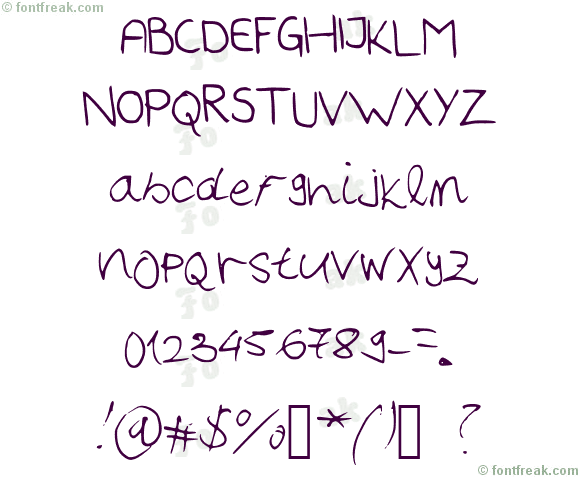
Handwriter
About Handwriter
The Handwriter font, created by Leonard Posavec through MyScriptFont.com, is a charming handwritten typeface that captures the essence of personal touch and authenticity. This script-style font features fluid, natural strokes that mimic the look of genuine handwriting. The overall stroke weight is moderate, offering a balanced appearance without being overly bold, and the subtle variations in contrast add an organic quality that enhances its handwritten appeal. The spacing between characters is thoughtfully designed to maintain readability while preserving the informal style that characterizes a handwritten font.
The Handwriter font is particularly well-suited for a variety of creative applications. It can elevate wedding invitations with its romantic flair, making special occasions feel even more personalized. Additionally, it works wonderfully for greeting cards, where a warm touch can make messages feel more heartfelt. Restaurant menus can benefit from its friendly vibe, enticing customers with an inviting aesthetic. Small business branding, such as logos or promotional materials, can also leverage this font to convey a relatable and approachable image, appealing directly to customers looking for a personal connection. Content creators will find it perfect for social media posts, where a casual tone can engage audiences effectively.
Targeting graphic designers, small business owners, and content creators, the Handwriter font offers versatility and warmth, making it a go-to choice for those looking to infuse their projects with a personal touch. The Handwriter font free download allows users to easily incorporate this unique typeface into their work, enhancing the character and charm of their designs. Its distinctive style and ease of use make it stand out in a crowded market, ensuring that your designs will leave a lasting impression.